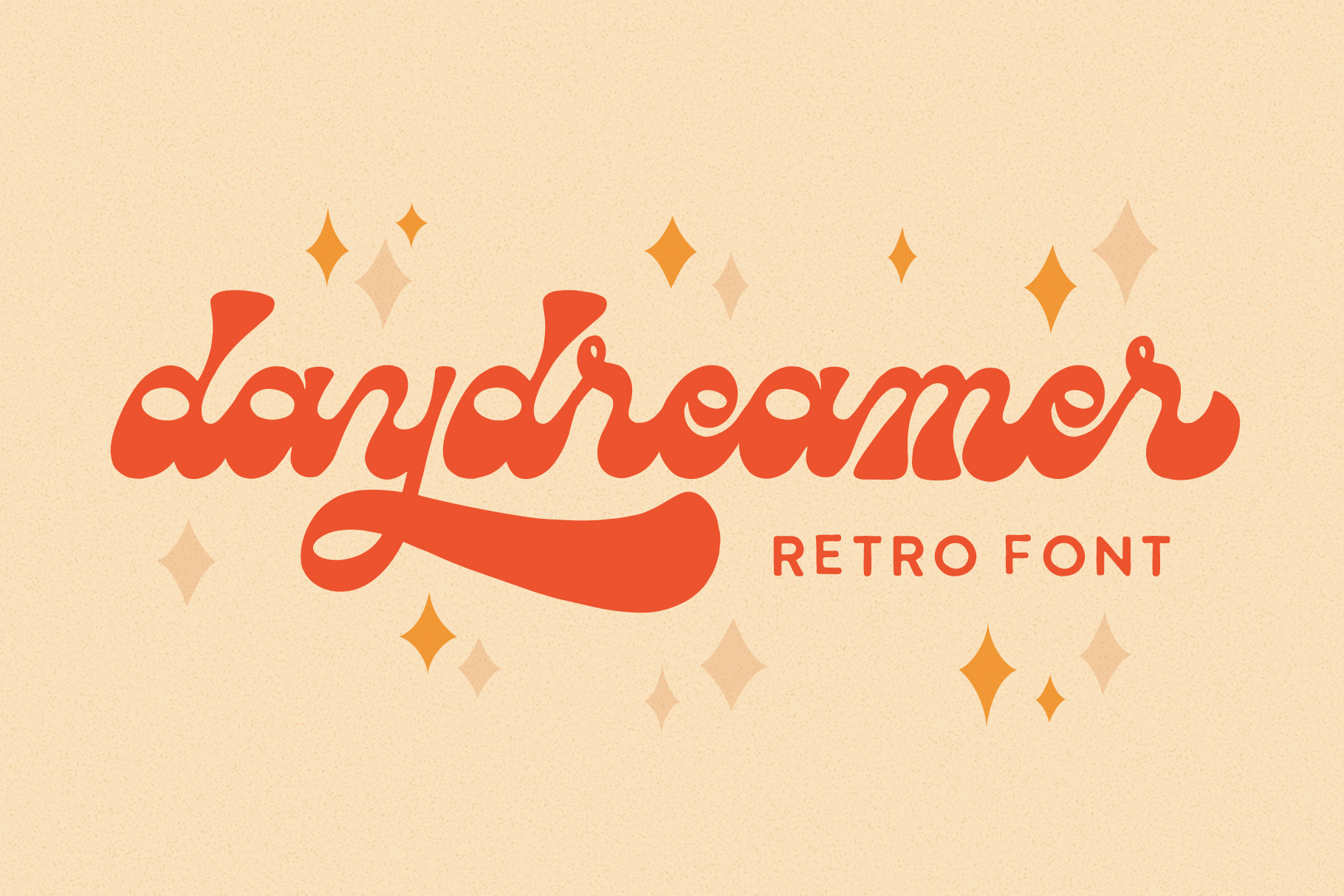
Daydreamer Retro Font
Daydreamer is a quirky, hand-drawn script. It has a playful and organic feel that works great for branding, social media, and marketing!